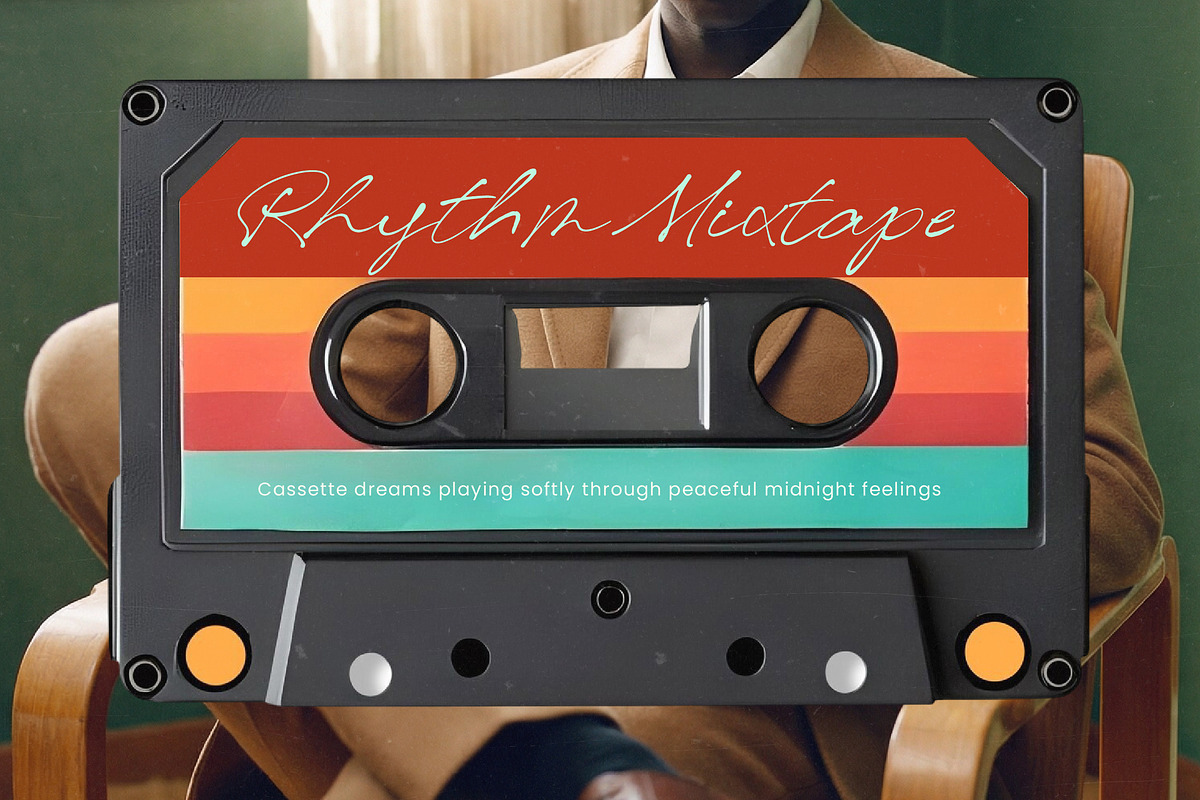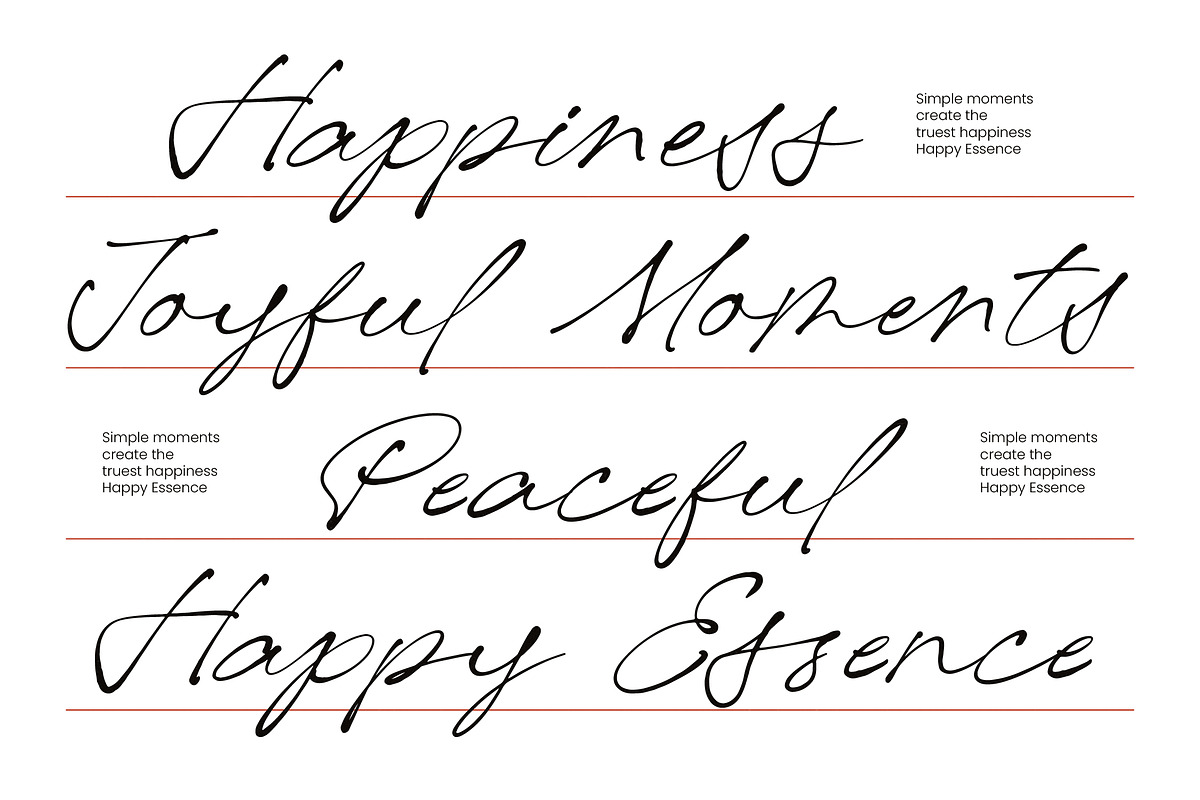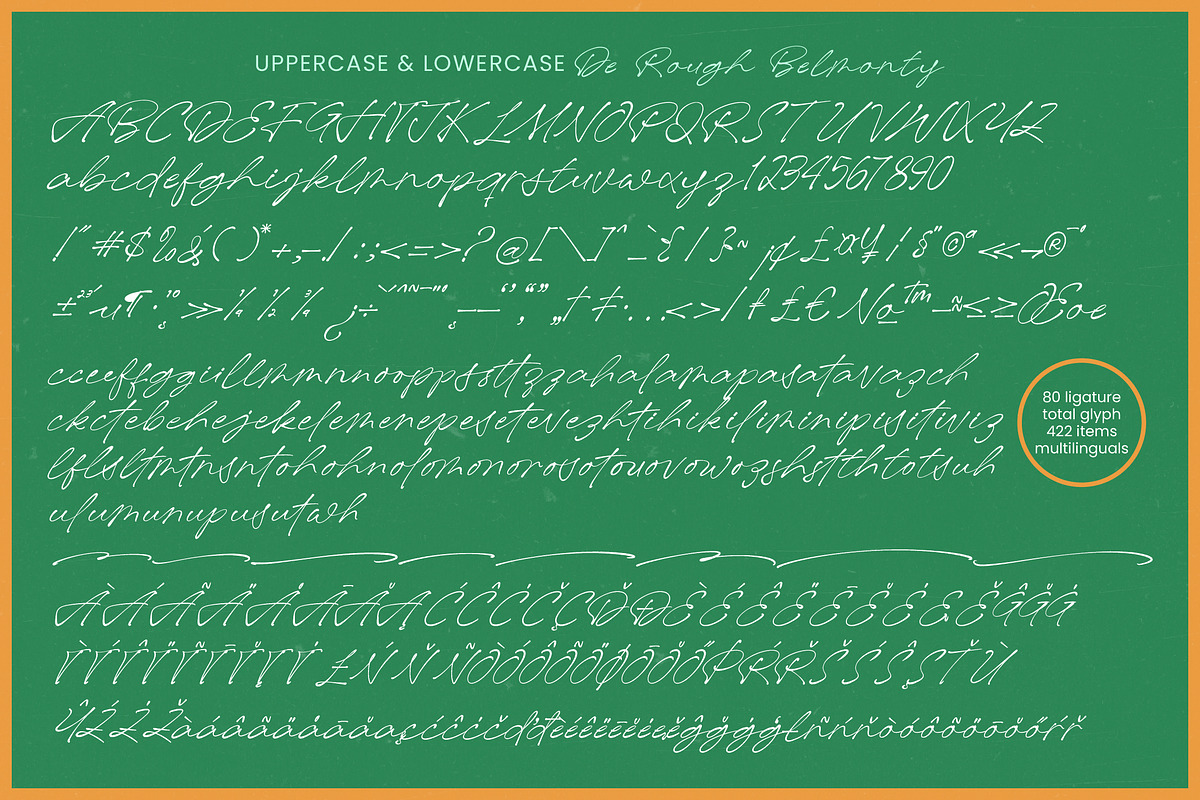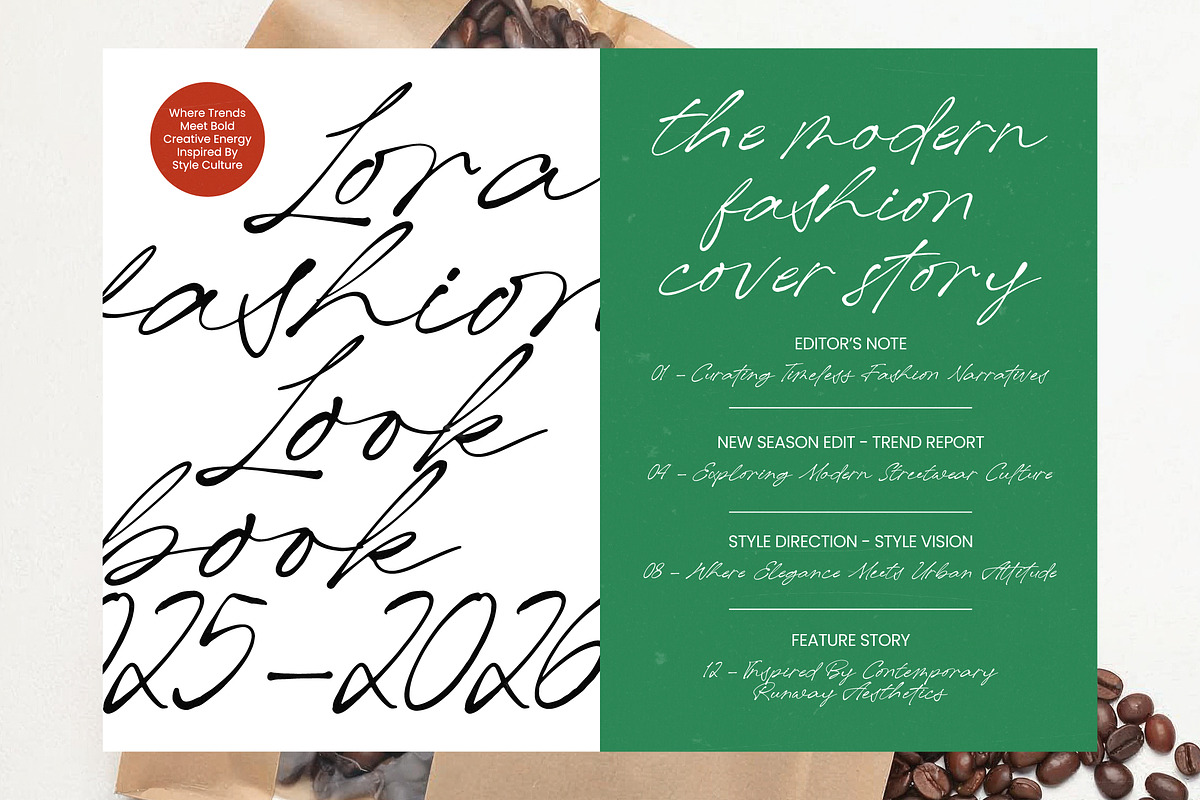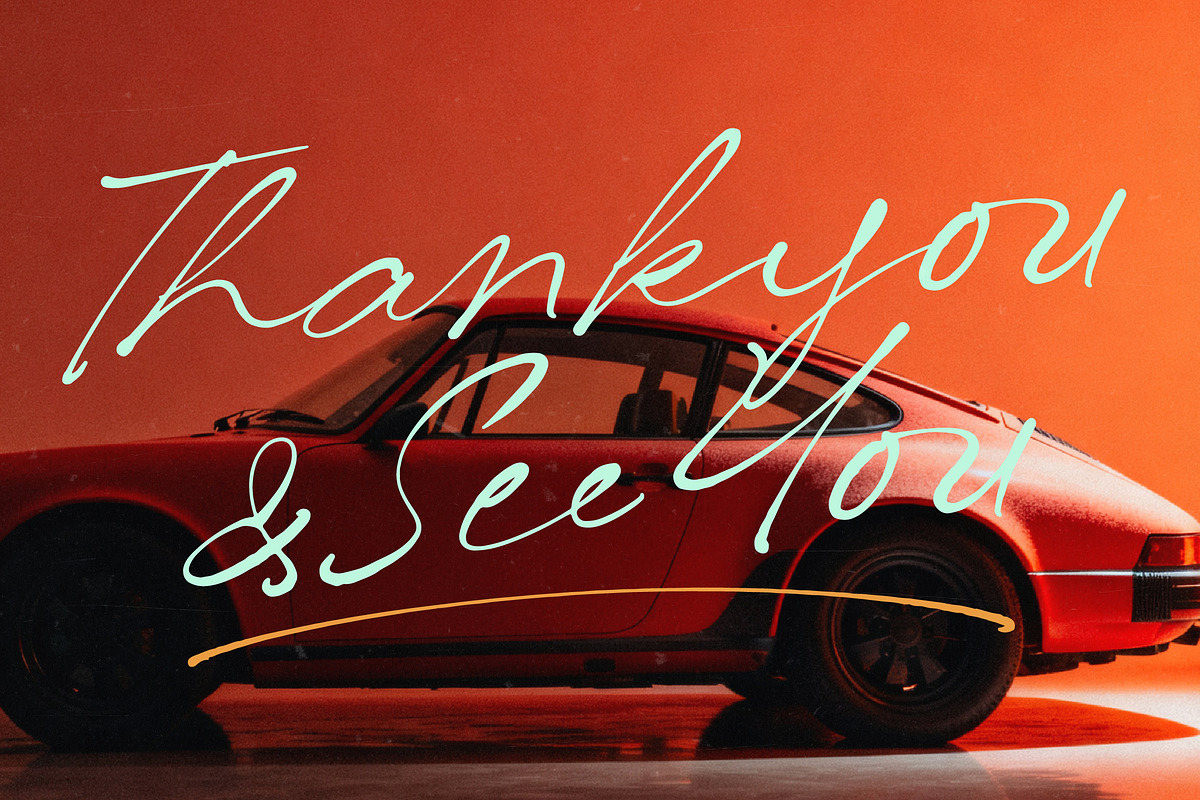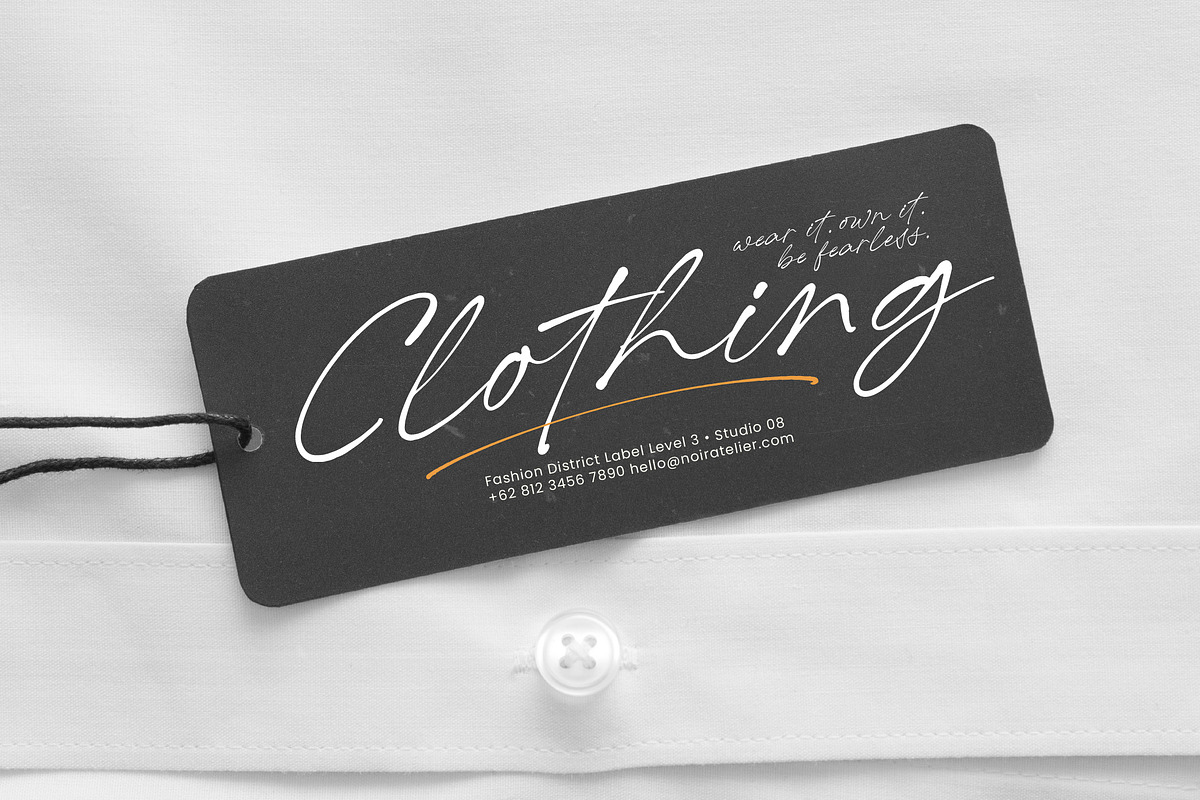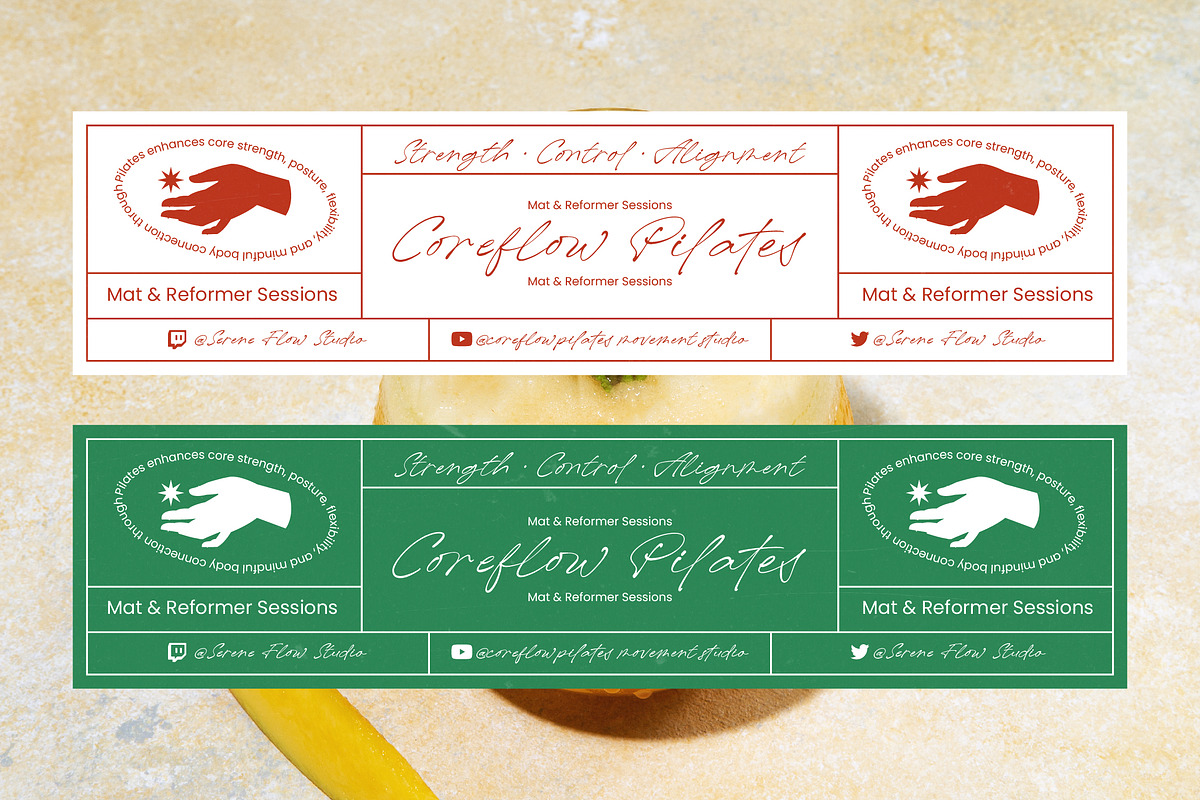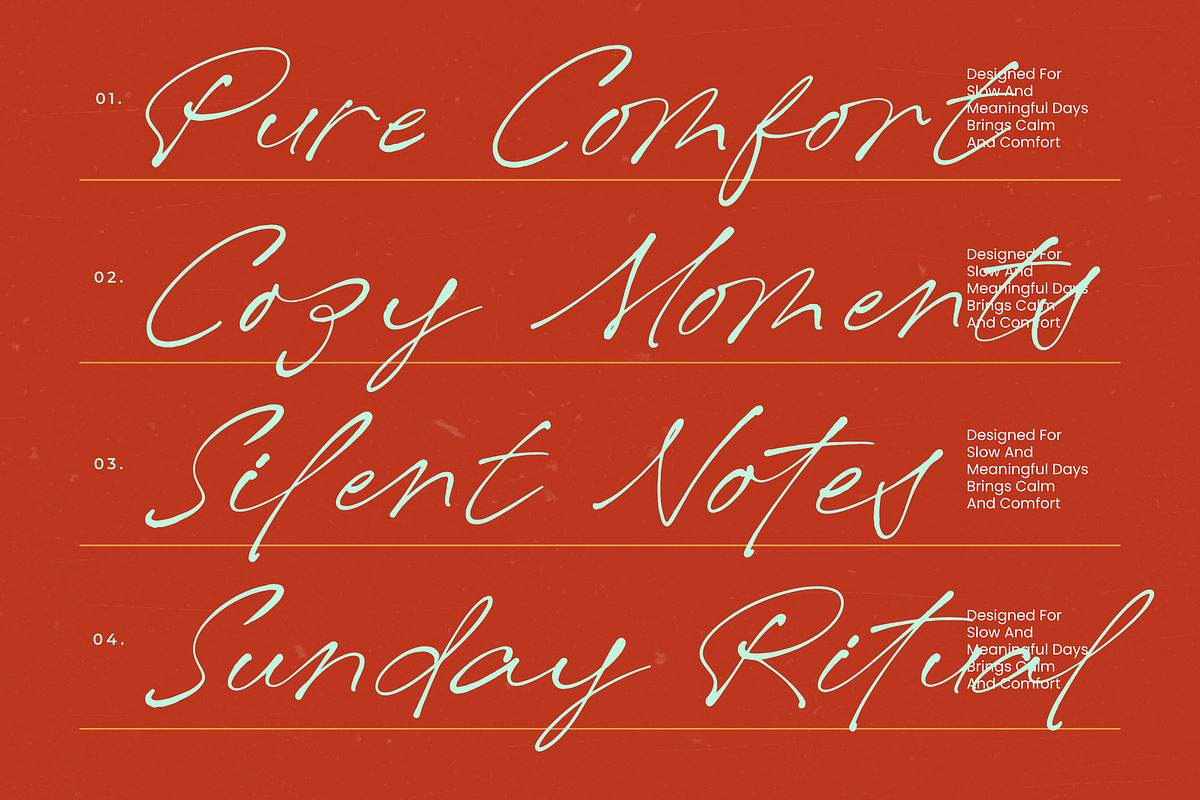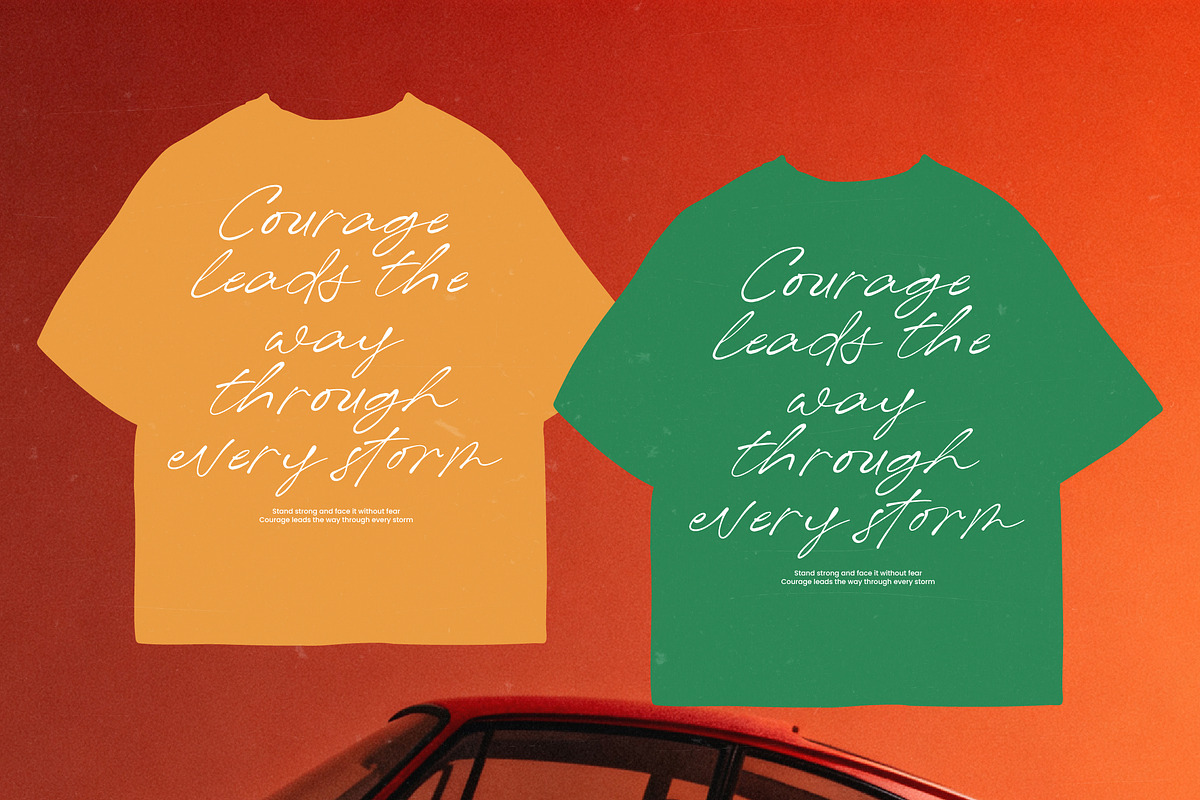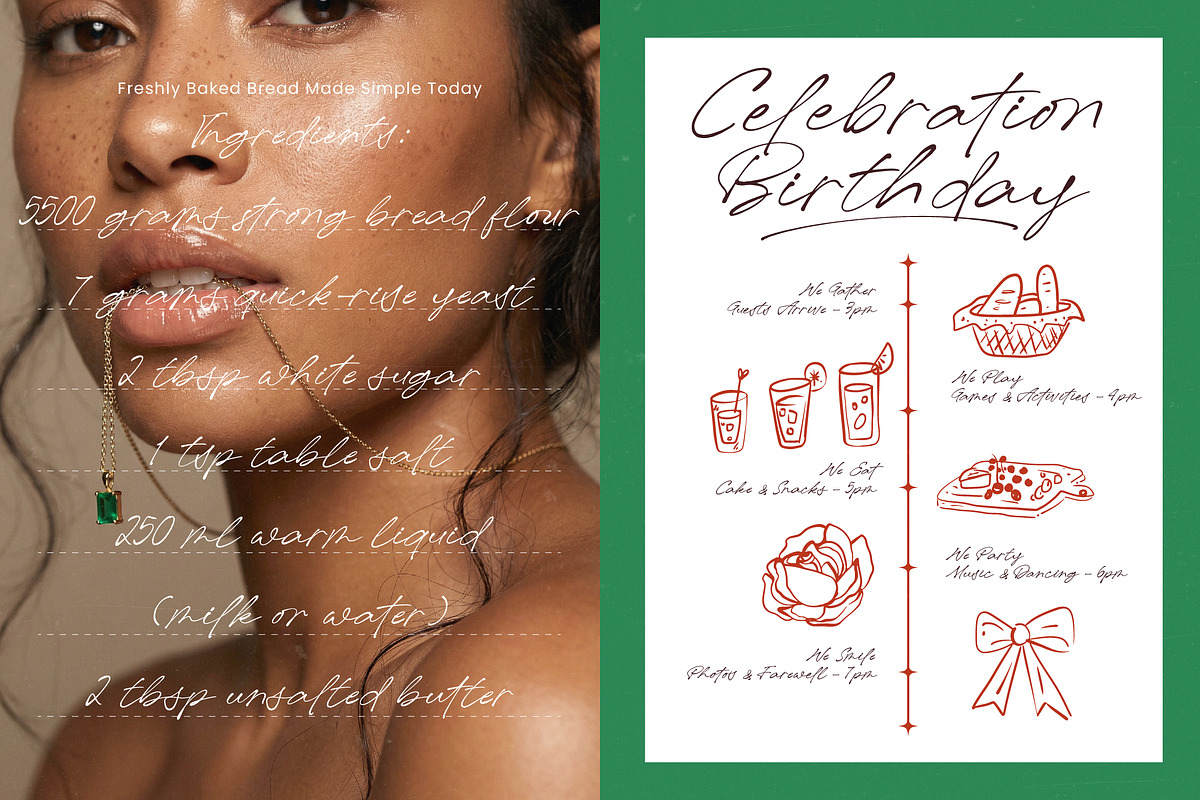
De Rough Belmonty Modern Rough
De Rough Belmonty - Modern Rough Signature
Elevate your creative vision with a typeface that embodies raw elegance and authentic character through every stroke. De Rough Belmonty - Modern Rough Signature is a high-impact script designed to capture the spontaneous energy of hand-drawn calligraphy. With its textured edges and expressive motion, this font brings a sophisticated edge to any design, ensuring your message is delivered with unparalleled personality and a premium feel.
Reach a global audience effortlessly with a versatile typeface built for modern international communication. With its extensive multilingual support, De Rough Belmonty - Modern Rough Signature adapts seamlessly across global markets, making it incredibly versatile for international projects. Featuring a comprehensive set of 422 glyphs, this font ensures that your brand identity remains consistent and powerful regardless of the linguistic requirements of your creative campaign.
Experience the flawless continuity of professional typography through masterfully crafted ligatures that define this unique font. De Rough Belmonty - Modern Rough Signature boasts 80 natural ligatures, creating smooth and connected letterforms that mimic genuine handwriting. This dynamic flow provides a bespoke aesthetic that is often missing in standard digital fonts, allowing designers to achieve a custom-lettered look with ease and efficiency.
Unlock unparalleled branding potential across a diverse range of high-end design sectors. De Rough Belmonty - Modern Rough Signature is perfect for luxury branding, premium packaging, automotive editorial, and fashion apparel design. Whether applied to social media headers or upscale logo marks, this font serves as the ultimate tool for creators looking to establish a bold statement and a memorable visual identity that stands out in a crowded marketplace.